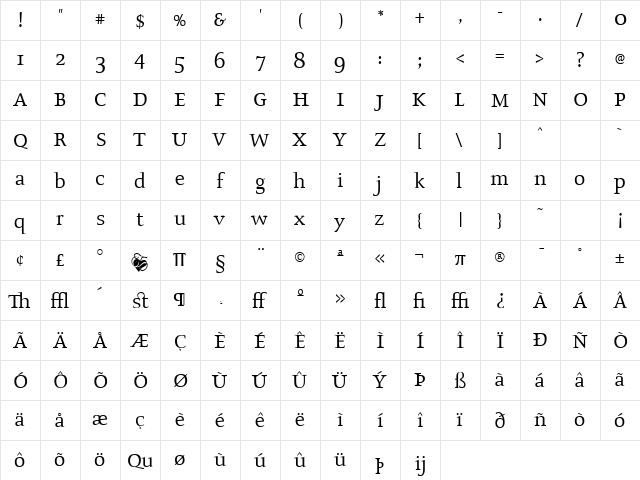
AIProsperaBook Regular
Design Context for AIProsperaBook Typeface
AIProsperaBook takes a measured approach to typography — its balanced proportions and neutral character make it a reliable workhorse for both digital and print work.